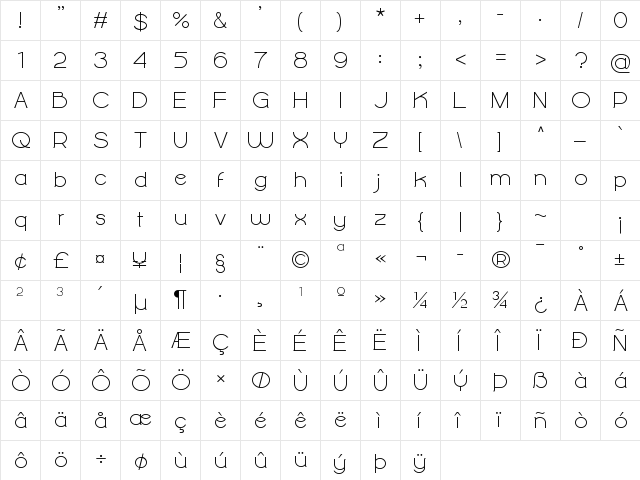
Alighty Hagazra Regular
| Designer | Situjuh Nazara |
Design Context for Alighty Hagazra Typeface
Alighty Hagazra is a composed and adaptable typeface that performs quietly and consistently across a wide range of design contexts. The delicate stroke weight brings airiness and refinement to layouts.
Pro Tip: Use Alighty Hagazra in both headline and body roles to test its range before committing to a single application.